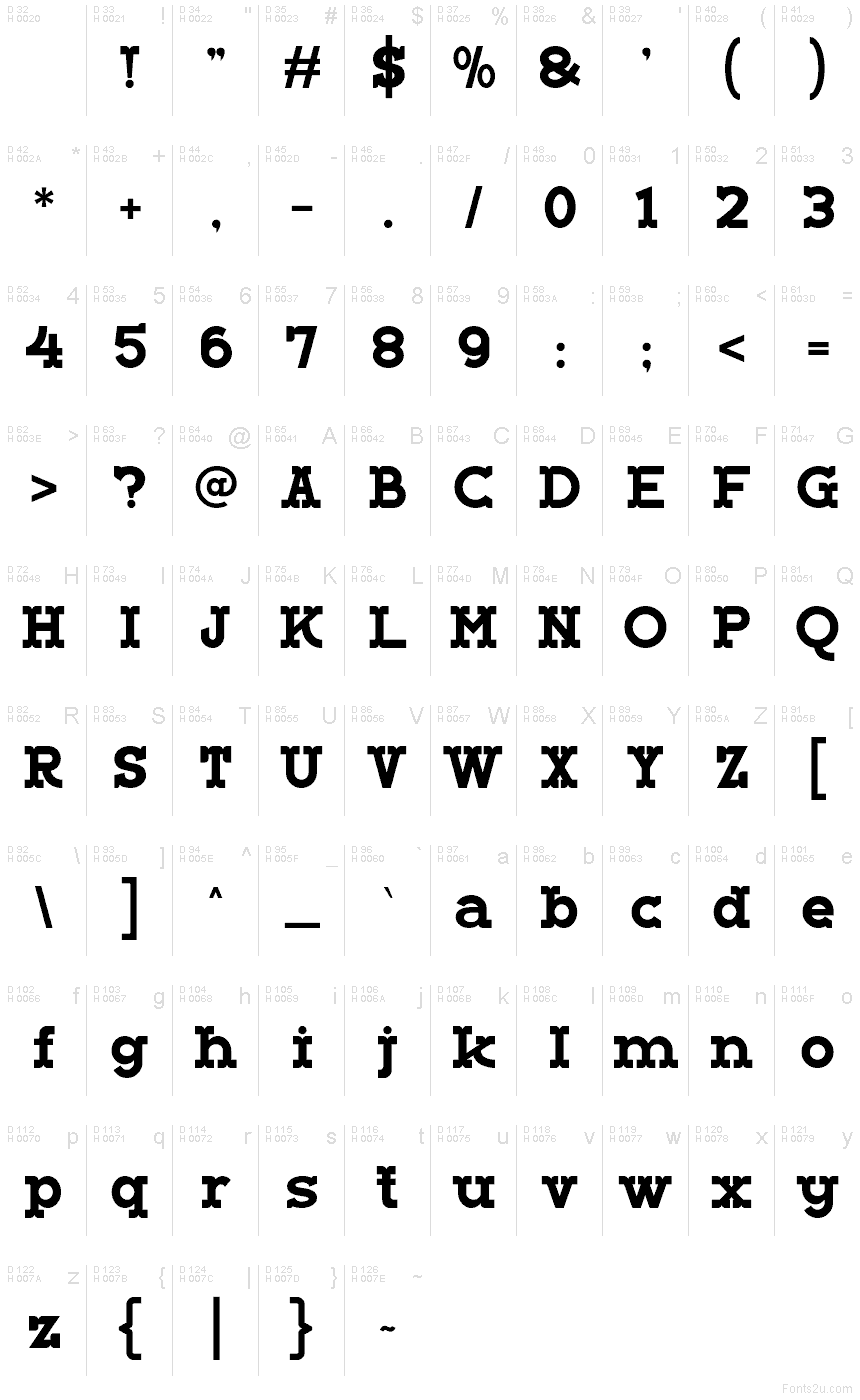
NORTH DUSTIC
North dustic font by Gilang Ternadho is a free bold western display font. Built for big, gritty headlines, it rides on chunky slab serifs, square shoulders, and tight, drumbeat rhythm that snaps into place. The strokes feel sturdy and sun-baked, with horseshoe-like curves and blocky terminals that give posters and signage real presence without going kitsch.
Using North dustic, you’ll nail rodeo posters, saloon-style menus, BBQ packaging, brewery labels, denim hangtags, and festival branding. This free font shines at large sizes where its slabs can breathe; add a touch of tracking for smaller subheads. Pair it with a warm, no-nonsense grotesque sans for body copy to keep the message clear and the mood rugged.